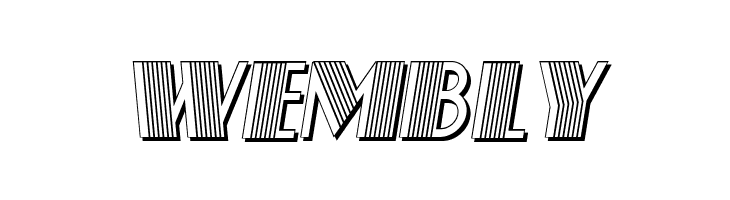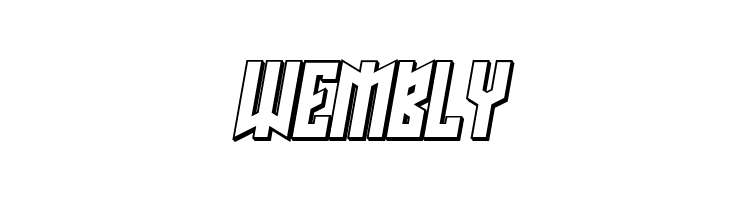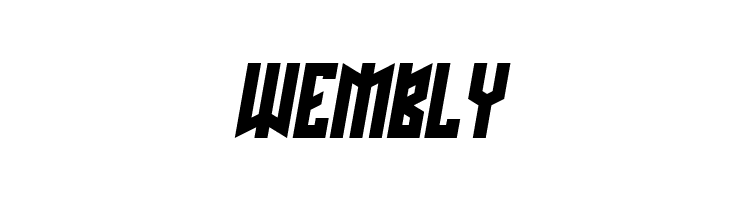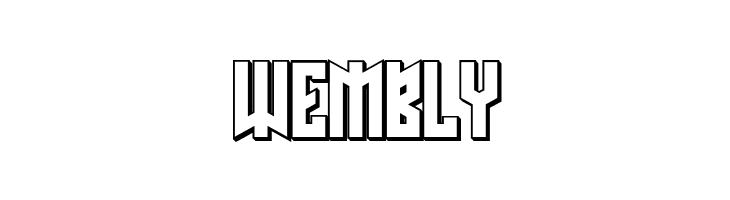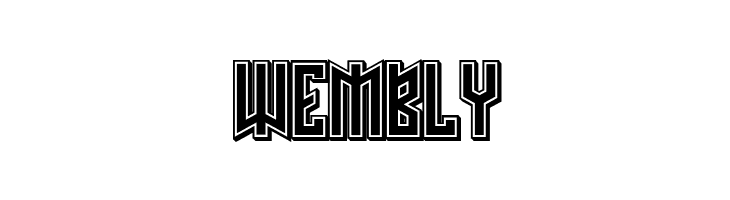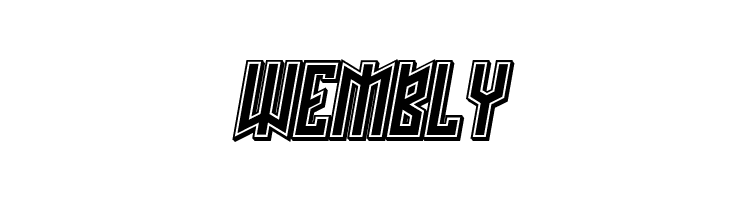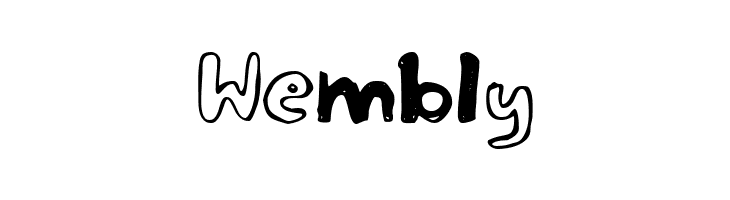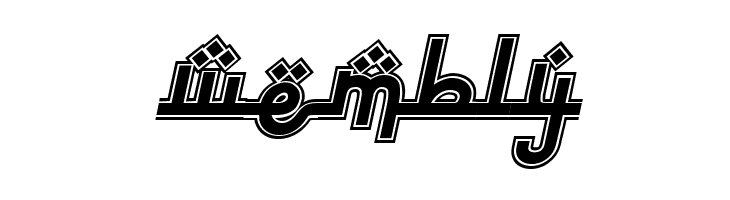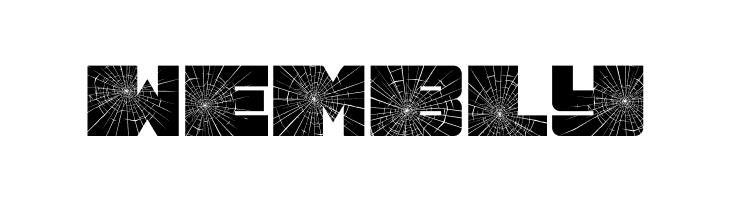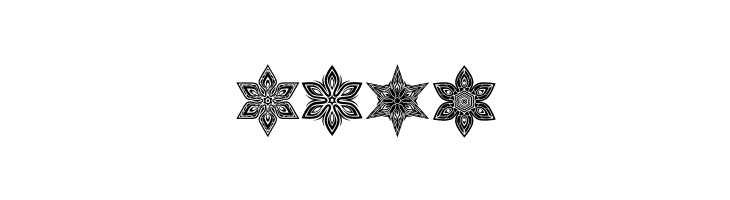
( Vladimir Nikolic - www.coroflot.com/vladimirnikolic )
A bold, italic font with a striped, dynamic design.
( Vladimir Nikolic - www.coroflot.com/vladimirnikolic )
Bold, 3D italic font with sharp angles and a futuristic style.
( Vladimir Nikolic - www.coroflot.com/vladimirnikolic )
A bold, angular, and italic font with a dynamic, geometric style.
( Vladimir Nikolic - www.coroflot.com/vladimirnikolic )
Bold, 3D geometric font with a futuristic and industrial style.
( Vladimir Nikolic - www.coroflot.com/vladimirnikolic )
A bold, 3D geometric font with filled interiors and strong outlines.
( Vladimir Nikolic - www.coroflot.com/vladimirnikolic )
A bold, 3D, italic font with sharp angles and a strong, modern look.
( Vladimir Nikolic - www.coroflot.com/vladimirnikolic )
A playful, hand-drawn font with a mix of bold and hollow characters.
( Vladimir Nikolic - www.coroflot.com/vladimirnikolic )
A bold, decorative font with geometric patterns and exotic flair.
( Vladimir Nikolic - www.coroflot.com/vladimirnikolic )
A bold, italic font with a dynamic, interconnected design and vintage flair.
( Vladimir Nikolic - www.coroflot.com/vladimirnikolic )
A bold, geometric font with a shattered glass effect for a dynamic and edgy appearance.
( Vladimir Nikolic - www.coroflot.com/vladimirnikolic )
Intricate snowflake patterns with detailed geometric designs.
( Vladimir Nikolic - www.coroflot.com/vladimirnikolic )
Bold, outlined collegiate font with an athletic, italicized style.
( Vladimir Nikolic - www.coroflot.com/vladimirnikolic )
Bold, italicized font with a dynamic, sporty style.
( Vladimir Nikolic - www.coroflot.com/vladimirnikolic )
A bold, geometric font with a strong, athletic style.
( Vladimir Nikolic - www.coroflot.com/vladimirnikolic )
A bold, collegiate-style font with outlined, blocky characters.
( Vladimir Nikolic - www.coroflot.com/vladimirnikolic )
A bold, playful, hand-drawn font with a textured and dynamic style.
( Vladimir Nikolic - www.coroflot.com/vladimirnikolic )
A bold, textured, hand-drawn font with a playful and dynamic style.
( Vladimir Nikolic - www.coroflot.com/vladimirnikolic )
A bold, geometric font with an industrial and futuristic style.
( Vladimir Nikolic - www.coroflot.com/vladimirnikolic )
A bold, italic typeface with angular, futuristic letterforms and decorative elements.
( Vladimir Nikolic - www.coroflot.com/vladimirnikolic )
A bold, italicized geometric font with a modern and dynamic style.
( Vladimir Nikolic - www.coroflot.com/vladimirnikolic )
A bold, spiky font with a playful and edgy design.
( Vladimir Nikolic - www.coroflot.com/vladimirnikolic )
A bold, spiky, and playful font with a textured appearance.
( Vladimir Nikolic - www.coroflot.com/vladimirnikolic )
A bold, spiky decorative font with a playful, cactus-like design.
( Vladimir Nikolic - www.coroflot.com/vladimirnikolic )
A bold, spiky, and textured font with a playful and edgy design.
( Vladimir Nikolic - www.coroflot.com/vladimirnikolic )
A bold, 3D geometric font with angular, futuristic characters.
( Vladimir Nikolic - www.coroflot.com/vladimirnikolic )
A bold, 3D geometric font with a filled interior and shadow effect.
( Vladimir Nikolic - www.coroflot.com/vladimirnikolic )
A bold, 3D font with a filled gradient effect and angular design.
( Vladimir Nikolic - www.coroflot.com/vladimirnikolic )
A bold, 3D, italic font with a filled design and contrasting outlines.
( Vladimir Nikolic - www.coroflot.com/vladimirnikolic )
A bold, italic, and futuristic font with angular, geometric characters.
( Vladimir Nikolic - www.coroflot.com/vladimirnikolic )
A bold, 3D italic font with a modern, geometric style.
( Vladimir Nikolic - www.coroflot.com/vladimirnikolic )
A bold, geometric font with sharp angles and a futuristic feel.
( Vladimir Nikolic - www.coroflot.com/vladimirnikolic )
A fluid and dynamic handwritten font with elongated, slanted letterforms.
( Vladimir Nikolic - www.coroflot.com/vladimirnikolic )
A playful font with characters inside teddy bear shapes, perfect for children's designs.
( Vladimir Nikolic - www.coroflot.com/vladimirnikolic )
A 3D block font with a retro, video game-inspired design.